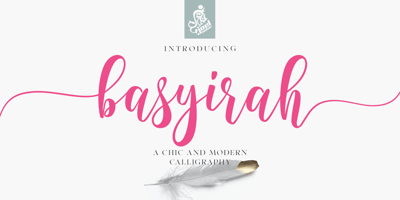
Basyirah Script Font Family was designed by Joelmaker and published by Joelmaker. Basyirah Script contains 1 styles and family package options. **Basyirah Script** is a chic hand calligraphy, smooth, modern and clasik, calligraphy wavy, which was created to meet the needs of your next design project. **Basyirah Script**, Can used for various purposes. such as the title, signature, logo, correspondence, Name Card, Quotes, wedding invitations, letterhead, signage, labels, newsletters, posters, badges, etc.**Basyirah Script** It contains a full set of lowercase & uppercase, a large range of punctuation, numerals, and multilingual support. The font also contains several ligatures, stylistic alternates, and Stylistic Set, for you who have opentype, or through a panel of glyphs capable software e.g. **Adobe Photoshop; Adobe Illustrator, Corel Draw and Adobe InDesign.****Let’s switch from the reguler character into character alternative to get the text with the layout of your dreams.****Thanks for your visit.**